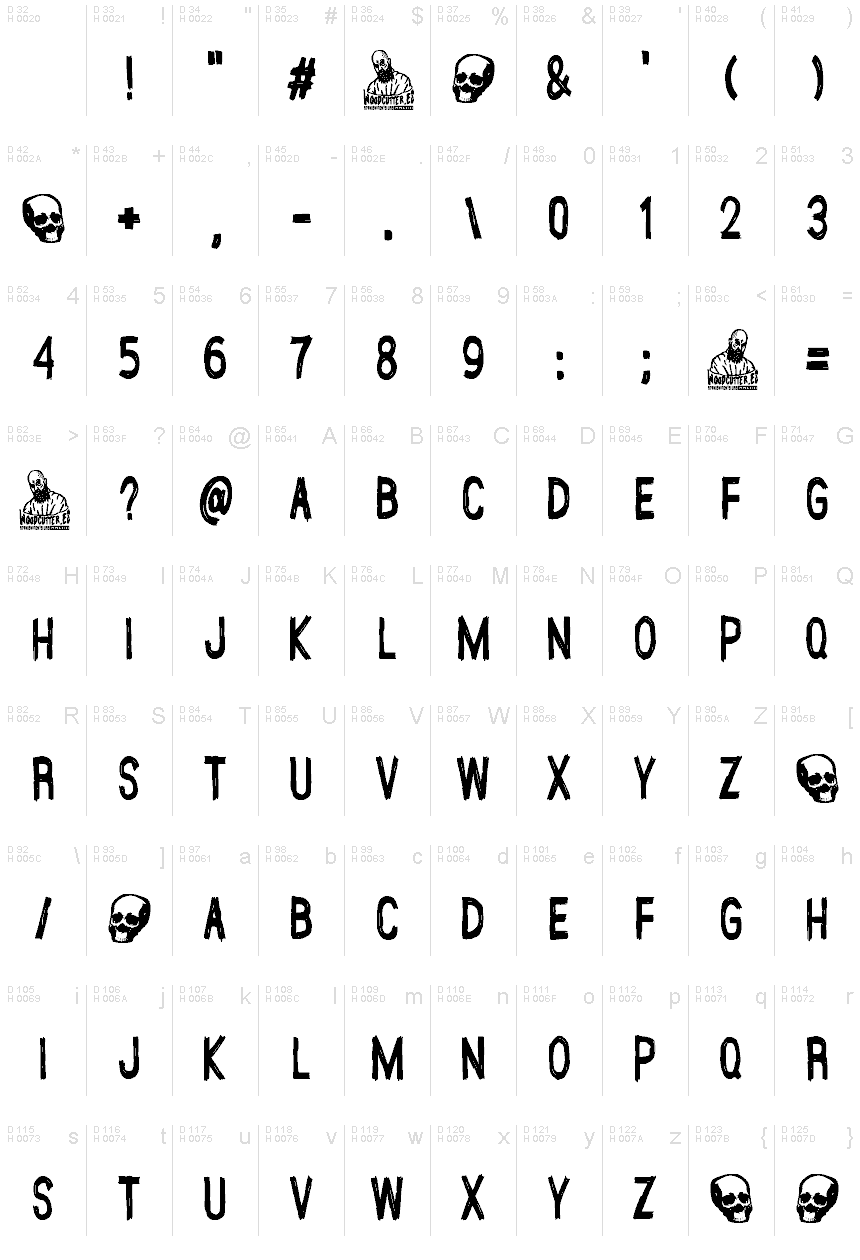
Autonomous Matriarchy
Autonomous Matriarchy font by Woodcutter is a brush font that’s expressive and artistic. Condensed and difficult to decipher, this design achieves a mysterious flair, one that excites the mind by words that are not immediately readable. Each letter gives an edgy impression created via an artistic craft.